17 Brush Lettering And Bridesmaid-Font Items For The Optimist In You
You've seen this beautiful font all over Pinterest!
You've probably seen this beautiful, bouncy, and feminine font all over Pinterest, Instagram, and Etsy. It's often called "brush lettering" or the "bridesmaid font" and has become a popular choice for a variety of products, from motivational posters and journals to clothing and bridesmaid swag. With a carefree, imperfect rise and fall, it feels incredibly organic and intimate. Below are some cool, covetable products that use this font!
1. These yummy and inspiring macaroon-coloured organisers for stationery, cosmetics, and more - ₹749
2. This bomb notebook - ₹499 for She-E-Os!
3. This wooden "Good Vibes Only" wall hanging - ₹395 to brighten up your space with tropical fruit and floral prints.
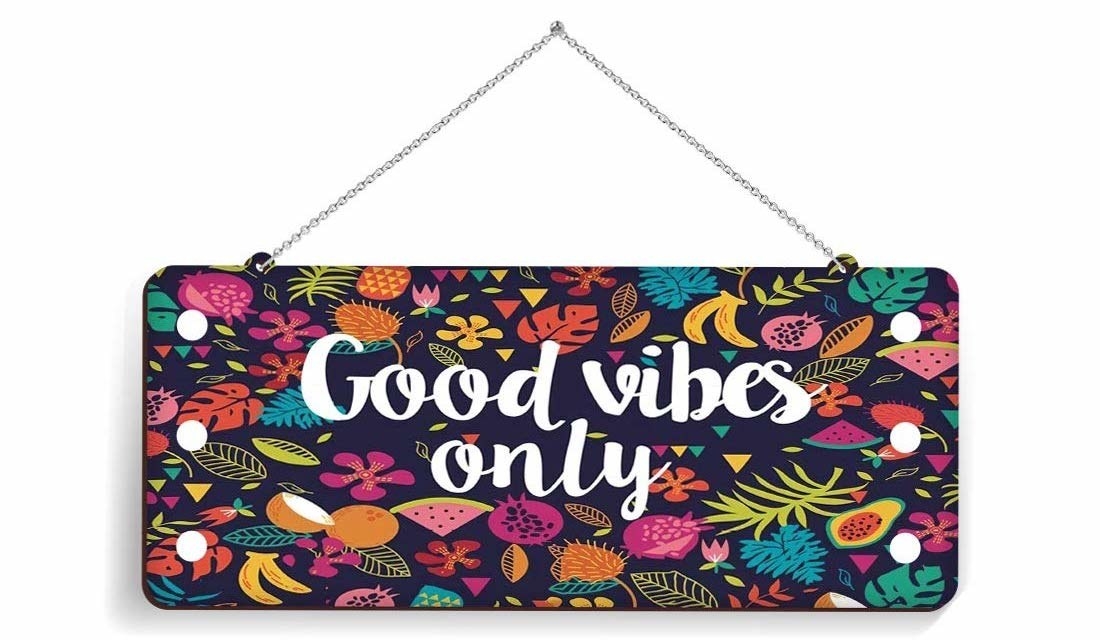
5. This colourful "Too Blessed To Be Stressed" PopSocket - ₹695 to use as a grip and stand for your phone, tablet, and more.
6. This beautiful pink porcelain tray - ₹395 to hold sweets, jewellery, and trinkets.
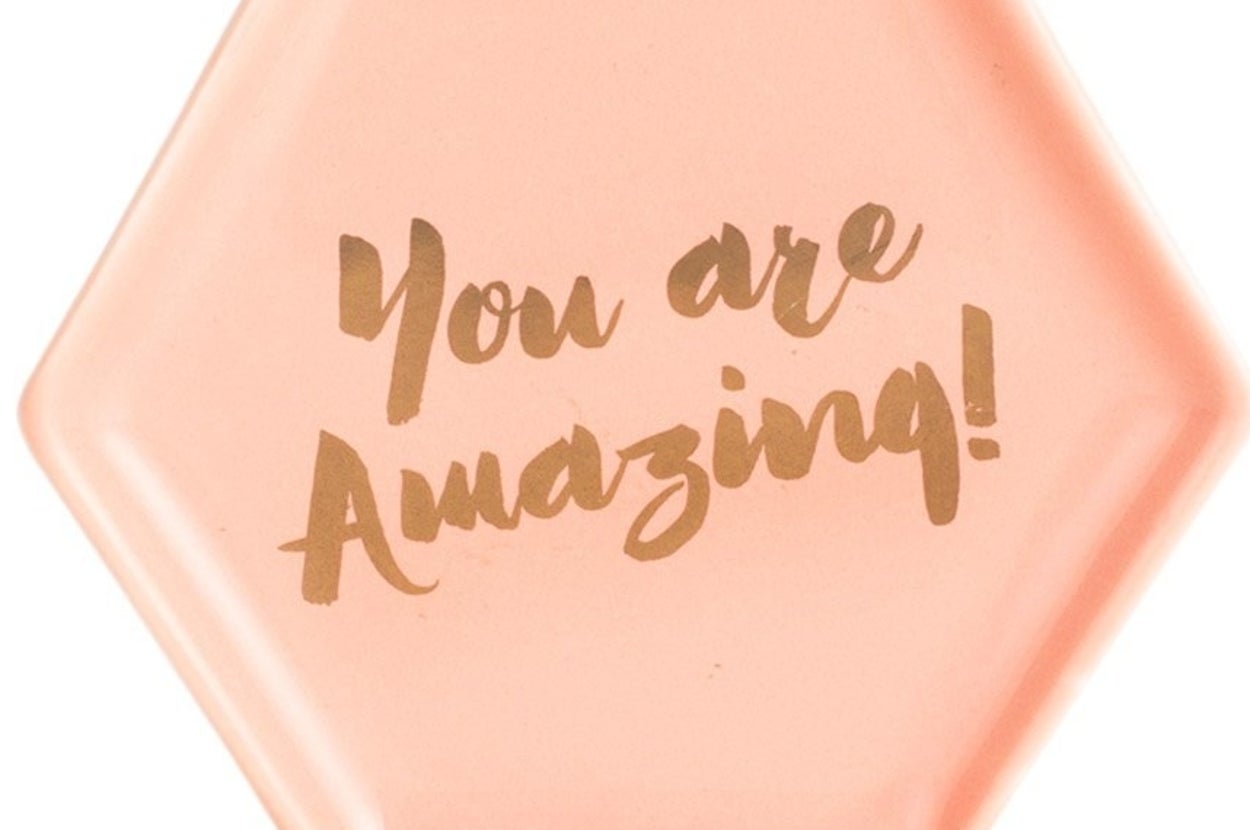
7. This wall poster to remind you what's truly important in life - ₹379
8. This wall poster affirmation to remind you to keep grinding, sis - ₹379
9. This life coach of a coffee mug to remind you of your vast potential - ₹299
10. This sweet and meaningful plaque to remind you that you have the power to build the life of your dreams with people you cherish - ₹399
11. This wooden poster for those who demonstrate their love for others through food and cooking- ₹289
13. These regal "You, Me and Tea" or "Coffee And Chill" jars for when you have friends over to spill the tea - ₹800
15. This black and white wooden Dream-Believe hanging plaque - ₹379
16. This ivory coloured hexagonal "Hello Sunshine" tray to store all your precious trinkets - ₹450
17. And this colourful "Positive Vibes Only" wall decal to perk up your space - ₹149